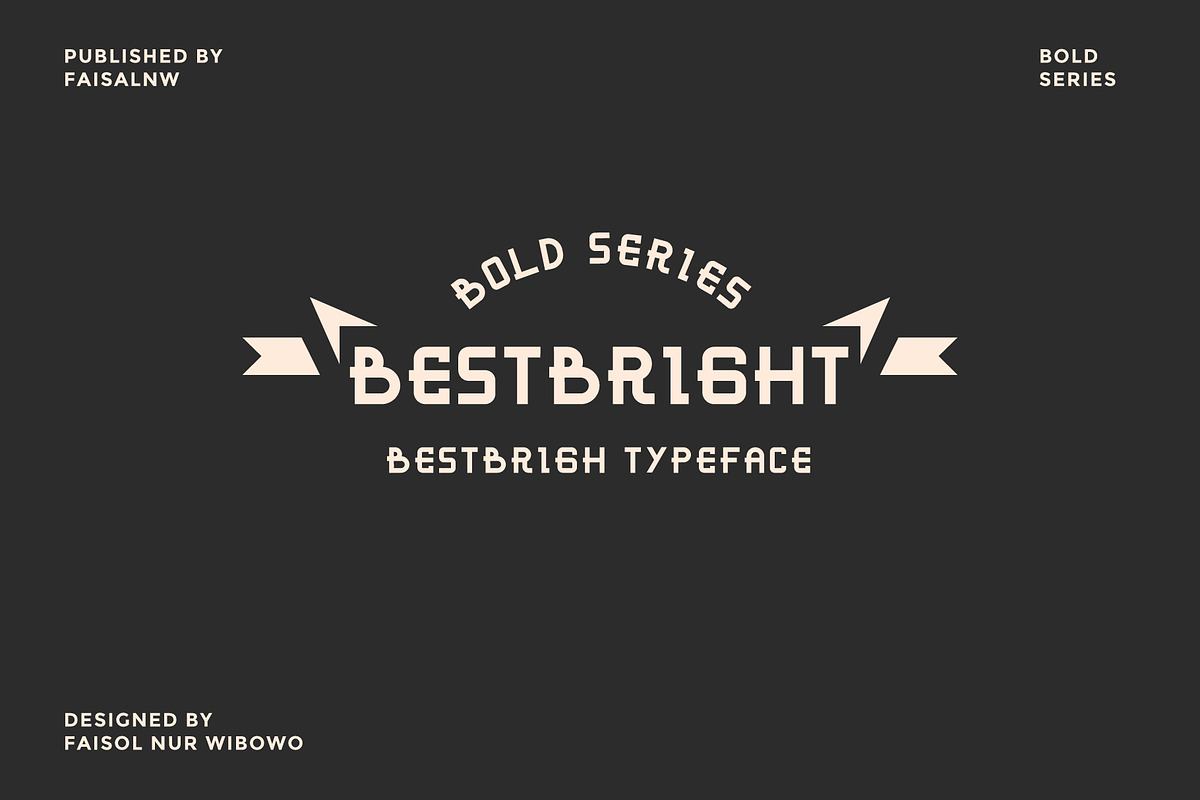
Bestbright Bold Font Free Download is a confident, modern typeface designed to grab attention and deliver your message with clarity and strength. With thick strokes and a clean geometric structure, this bold font is perfect for headlines, posters, branding, advertising, and standout social media graphics.
Whether you're creating for tech startups, lifestyle brands, or bold product packaging, Bestbright brings a polished yet powerful feel to every layout. Its simplicity makes it versatile, while its weight ensures your words won’t be missed.
Designers appreciate Bestbright for its professional appearance and strong presence across both print and digital formats. Ready to shine a spotlight on your next design? Download Bestbright Bold Font Free Download and make your typography bold, bright, and unforgettable.